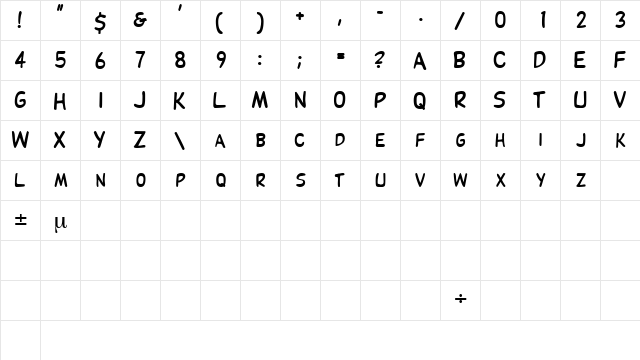
DibsDisplaySCapsSSK Regular
Design Context for DibsDisplaySCapsSSK Typeface
DibsDisplaySCapsSSK is built around its visual character rather than neutral utility — its distinctive forms are designed to make an impression at display sizes.
Font Pairing: Pair with a clean neutral sans-serif for body copy to let DibsDisplaySCapsSSK's character lead without overwhelming the composition.
Pro Tip: Use DibsDisplaySCapsSSK exclusively at display sizes — it was designed to be seen, not read at length. Let a neutral companion handle body copy.